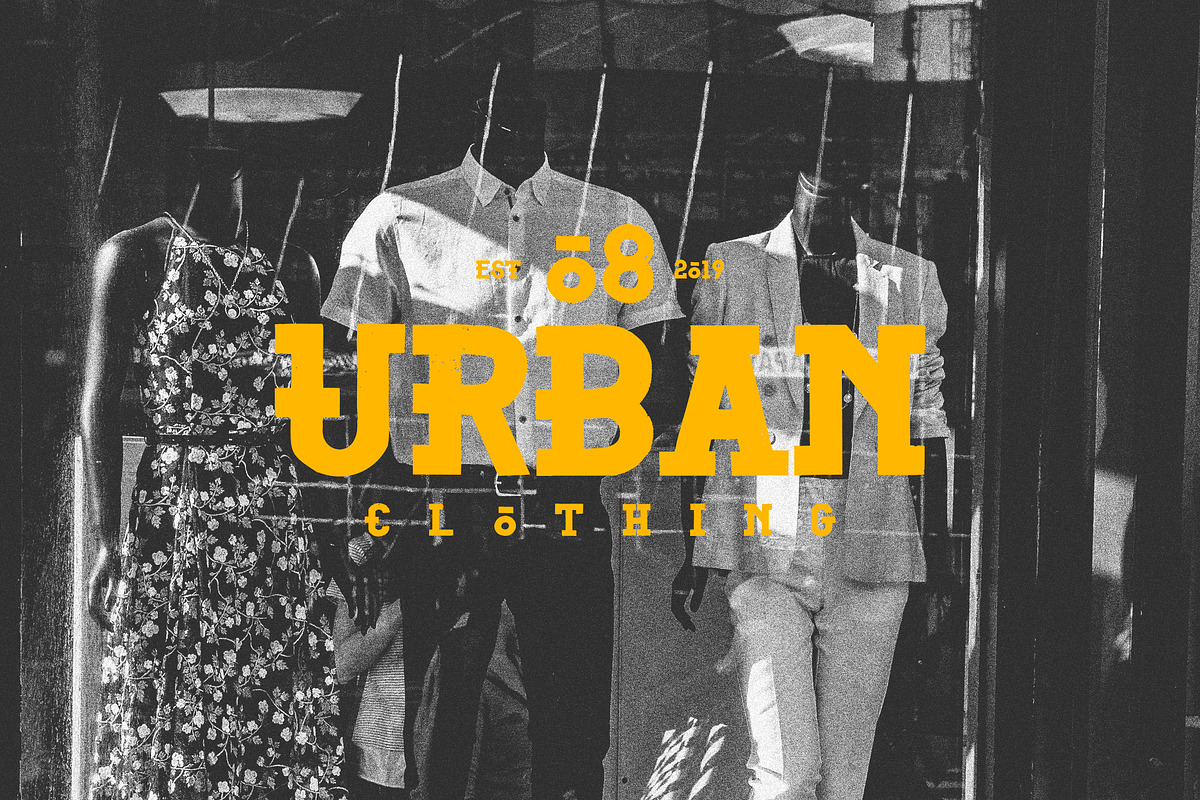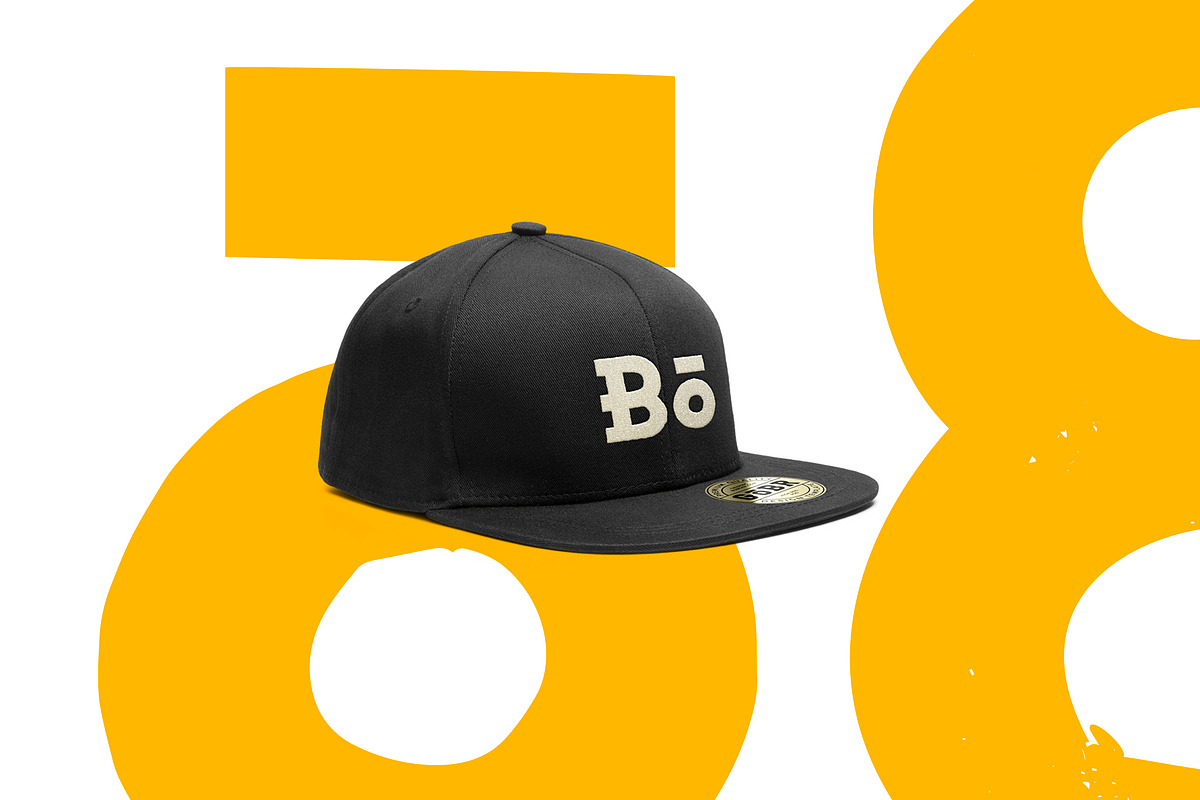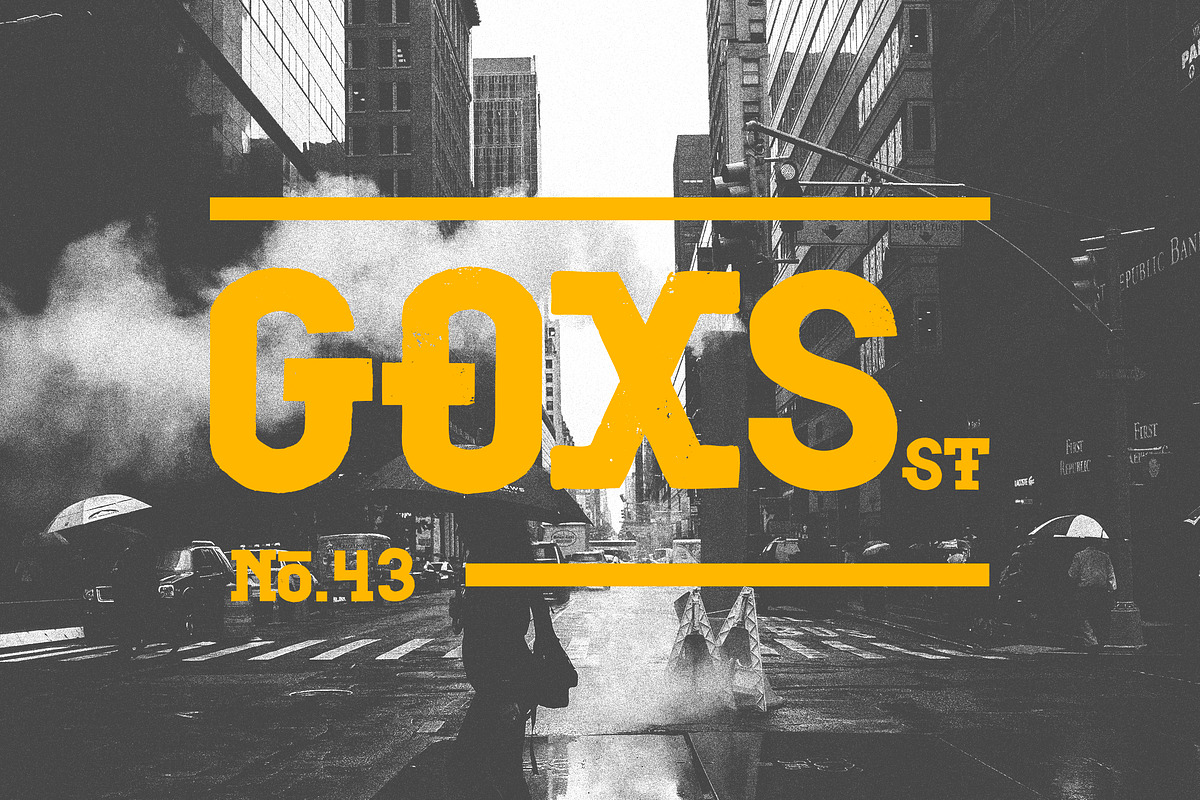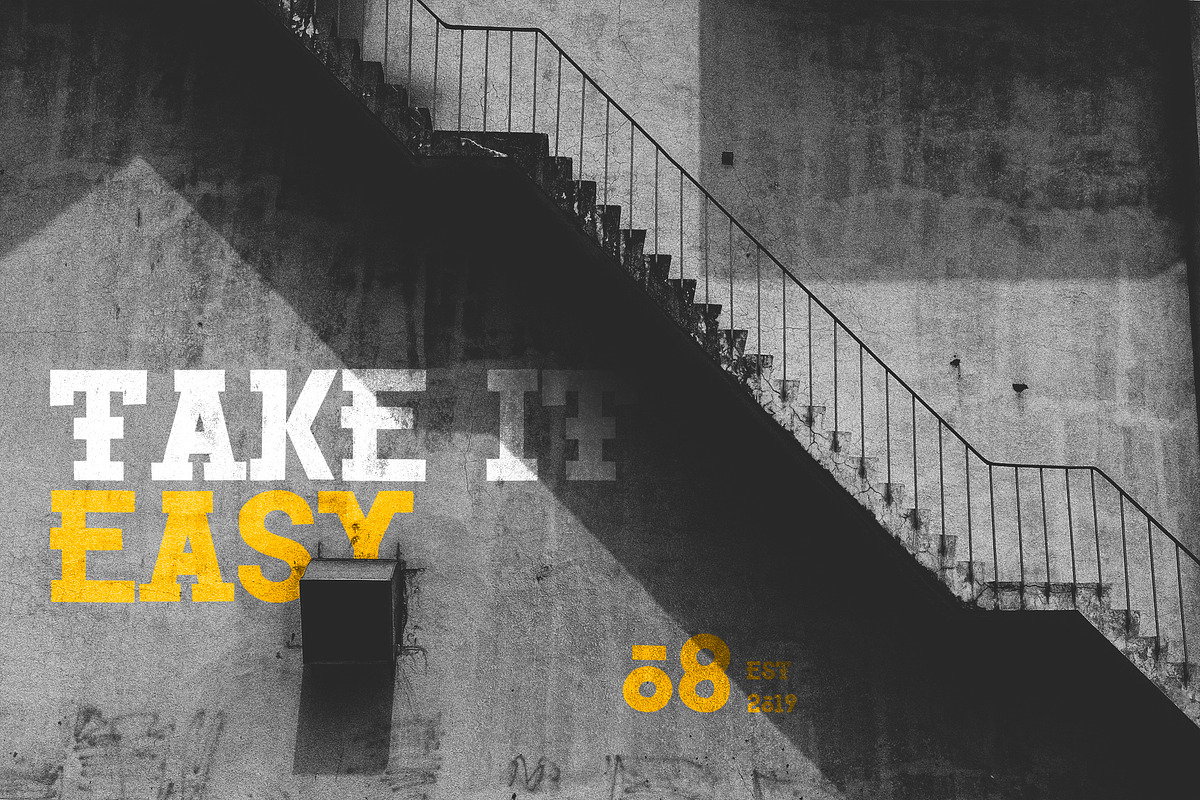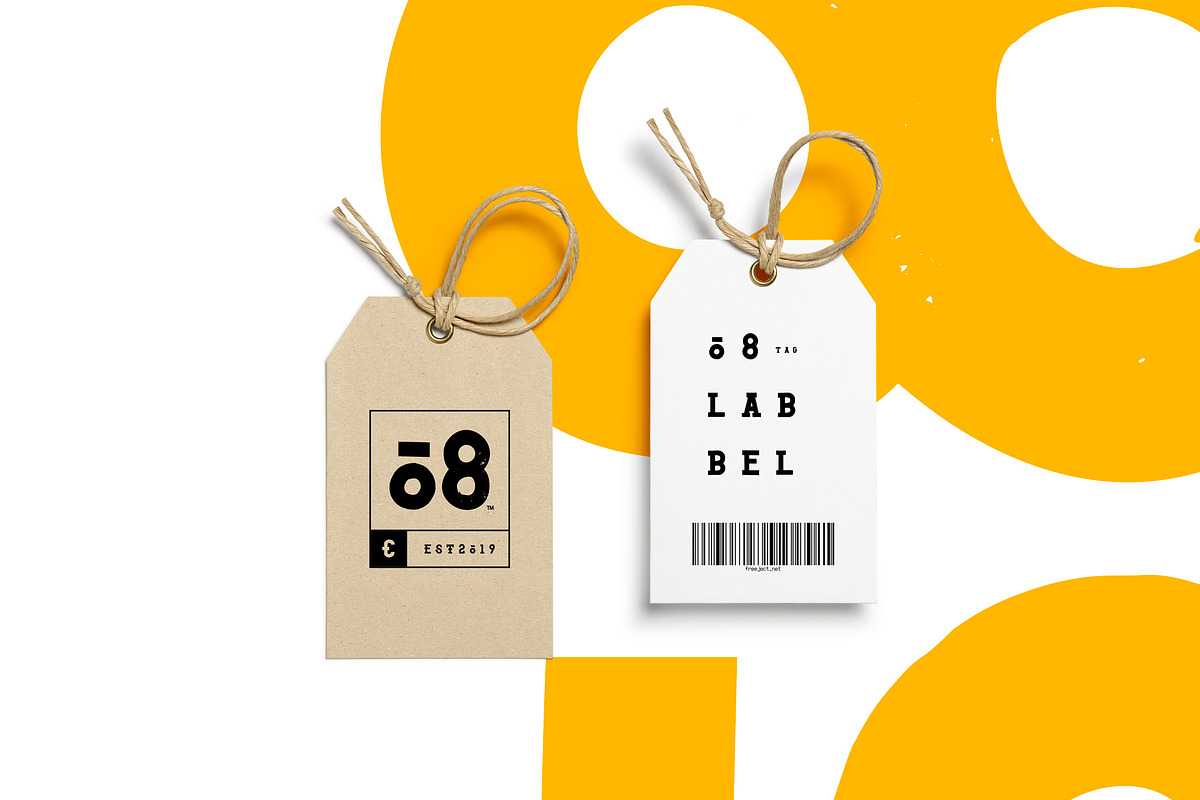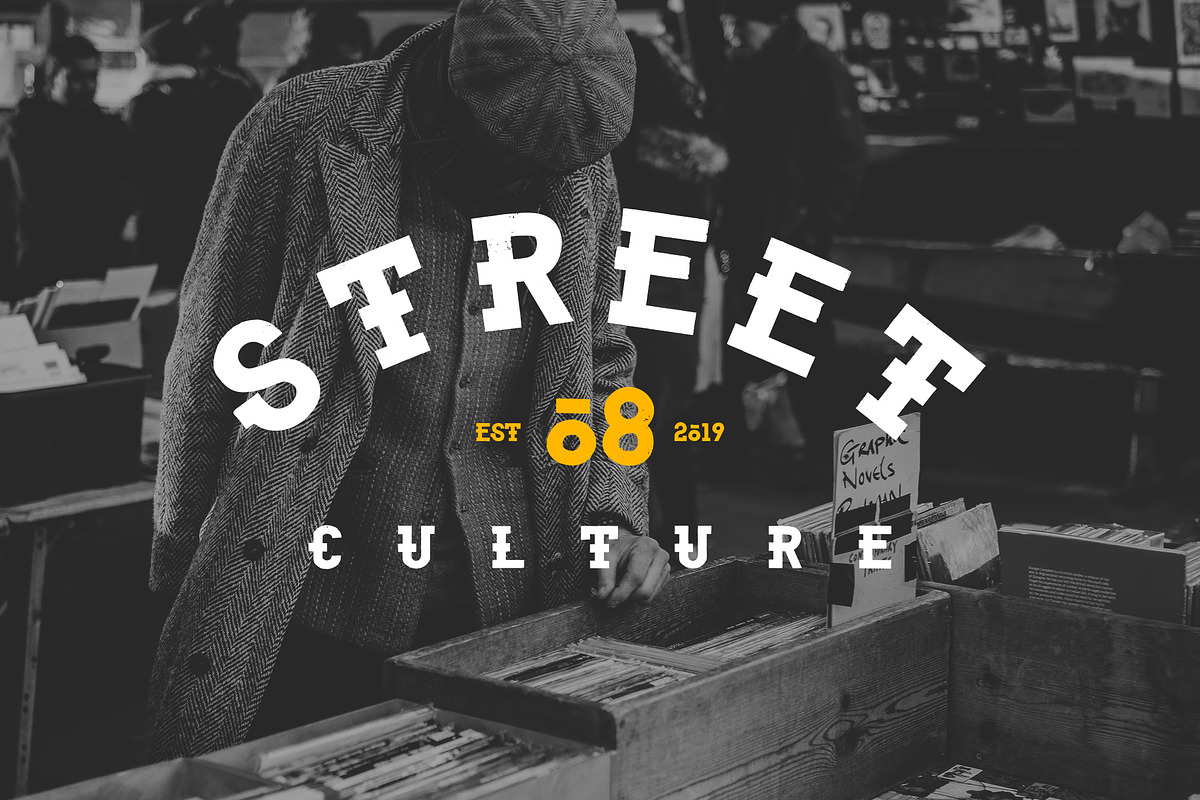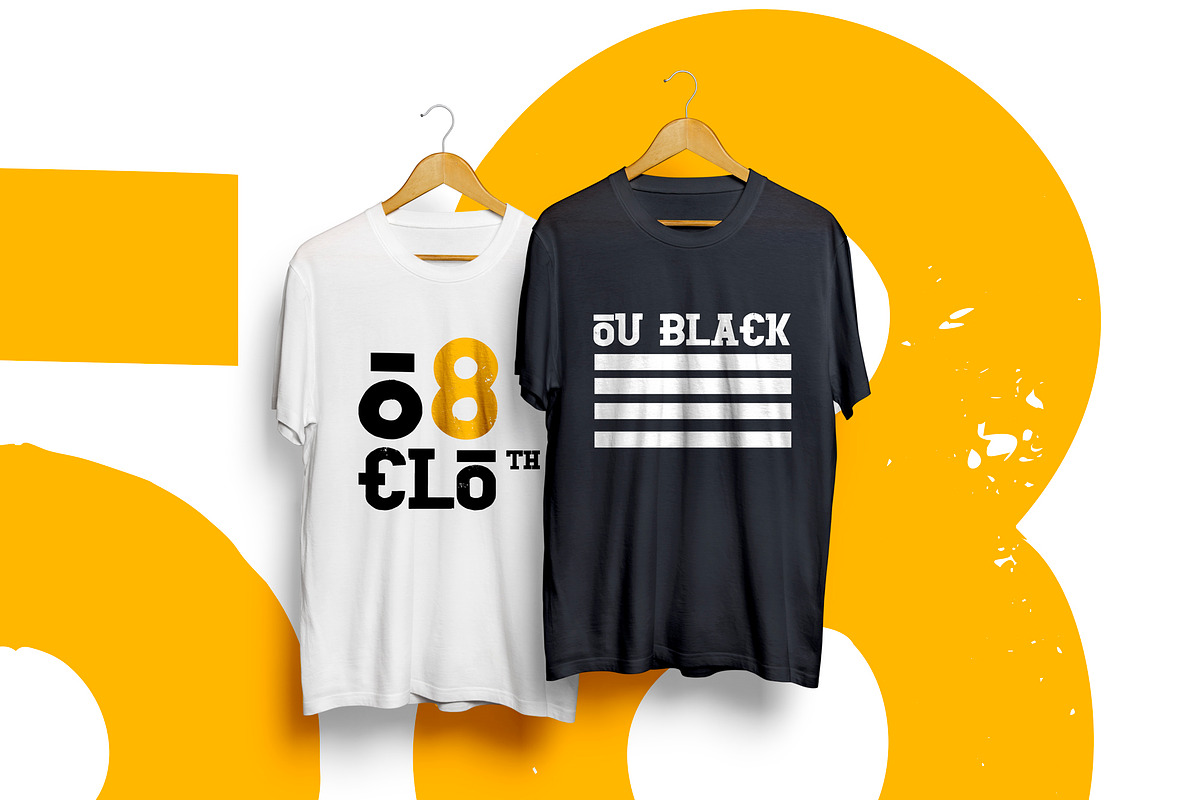
GOBR Bold + Strong Font
This font feature has a strong body, but some parts are flexible with an unsymmetrical arch of the line. This font has a bit of Nois, nice to use for clothing brand design with street theme. This font can be used for street culture, skateboards, murals, hip hop, rap, etc.
GOBR Bold + Strong Font by freeject.net fits naturally into Branding, posters, packaging, typography.